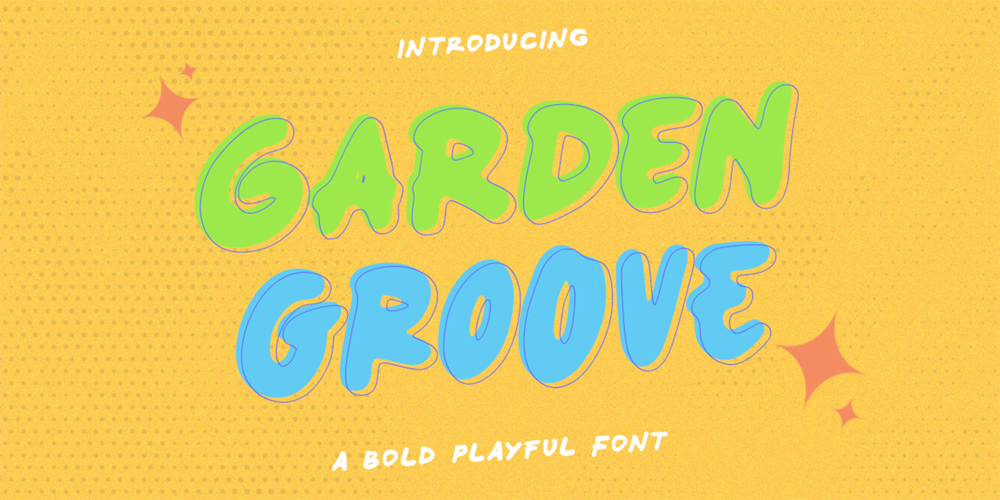
Playful Garden Groove font Font Family was designed by Rochadi Sudarma and published by Rochart. Playful Garden Groove font contains 4 styles and family package options. Introducing “Garden Groove,” a playful font that adds a touch of whimsy and fun to your designs. With its cheerful and lively style, this font is perfect for projects that need a vibrant and playful vibe.”Garden Groove” offers versatility with its multiple styles, including regular, slant, and outline. Each style brings its own unique charm, allowing you to choose the perfect look for your project. Whether you prefer a clean and classic feel with the regular style, a dynamic and energetic look with the slant style, or a bold and eye-catching appearance with the outline style, “Garden Groove” has got you covered.But that’s not all! Each style of “Garden Groove” also comes with a variety of stylistic alternates, giving you even more options to customize your text and create a truly unique design. Plus, the font supports multiple languages, ensuring that your message can be communicated effectively to audiences around the world.Transform your designs into a playful and vibrant masterpiece with “Garden Groove.” Let your creativity flourish and groove to the beat of this charming and versatile font.